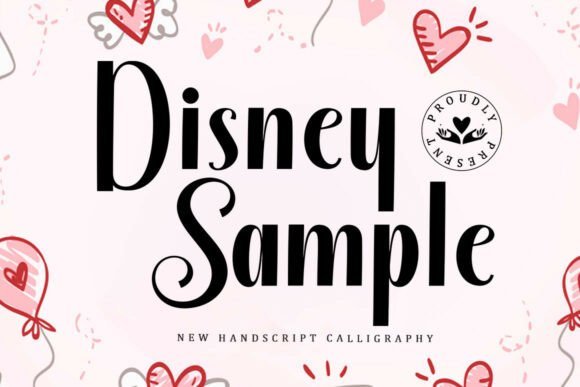
Unleash Your Creativity with the Magic of Disney Sample Font
Have you ever been brainstorming a new design project, and the perfect font just eludes you? You envision a beautiful, elegant script that transports your audience to a world of luxury and sophistication. For designers like you, finding the right font can be a game-changer. That’s where the Disney Sample Font comes in – a stunning, high-quality script font designed to elevate your creative ideas to new heights.
This exquisite font is not just a pretty face; it’s a valuable tool for any designer looking to add a touch of glamour to their work. With its sleek, clean design and luxurious letter connections, the Disney Sample Font is perfect for formal applications such as invitations, labels, and restaurant menus. And with its PUA-encoded feature, you can easily access all the glyphs and strokes to create truly unique designs.
Disney Sample Font Key Features
- Font Family: The Disney Sample Font is a custom-designed font family, created specifically for Disney’s branding and marketing materials.
- Character Set: The font includes a wide range of characters, including uppercase and lowercase letters, numbers, punctuation marks, and special characters, making it suitable for various applications.
- Unique Characteristics: The Disney Sample Font features a distinctive, hand-drawn style with a whimsical and playful feel, evoking the magic and wonder of Disney’s brand identity.
Disney Sample Font Review
Overall, the Disney Sample Font is a charming and nostalgic choice for any design project. ✨ It captures the essence of classic Disney magic, making it perfect for branding, advertising, and editorial content. The font’s rounded edges and subtle flourishes evoke a sense of whimsy and wonder.
The font’s legibility is also noteworthy, with clear letterforms and adequate kerning. It’s suitable for both body text and headings, making it a versatile choice for designers.
- Lack of bold and italic weights, which may limit its use in certain design contexts.
- The font’s vintage feel may not appeal to designers seeking a more modern aesthetic.
Despite these limitations, the Disney Sample Font is a delightful addition to any designer’s toolkit. Its charm and character make it a great choice for projects that require a touch of nostalgia and magic. Just be aware of its limitations and use it thoughtfully to get the best results.
Tips for Getting the Most Out of the Disney Sample Font
1. Experiment with different font sizes and styles to achieve a unique look.
2. Combine the Disney Sample Font with other fonts to create a visually appealing design.
3. Use the font in conjunction with Disney-themed graphics and images for a cohesive look.
1. Children’s party invitations and decorations.
2. Disney-themed posters and flyers.
3. Social media graphics and advertisements.